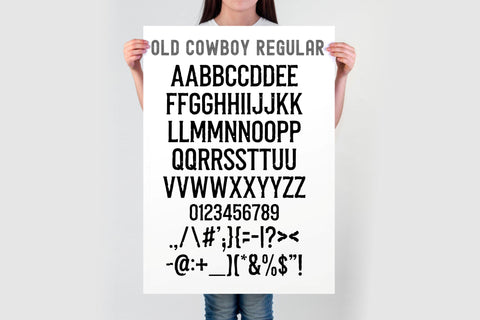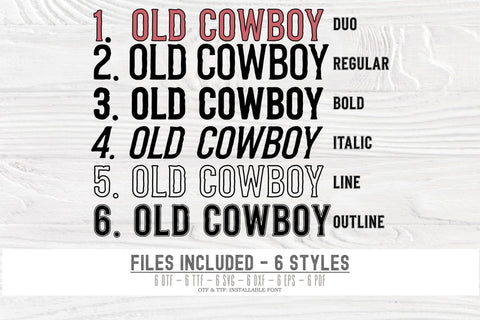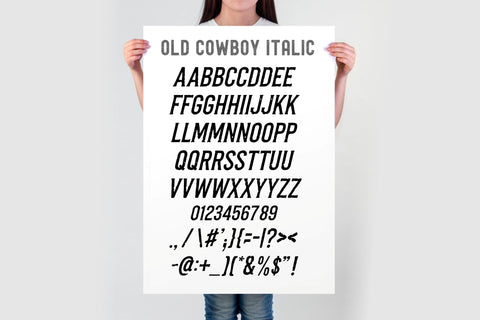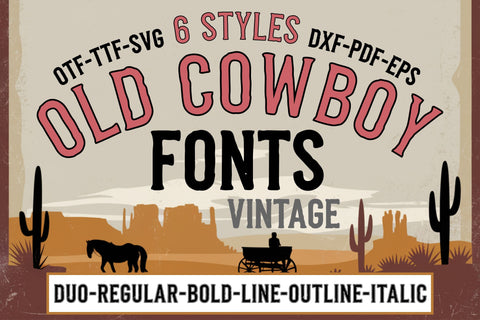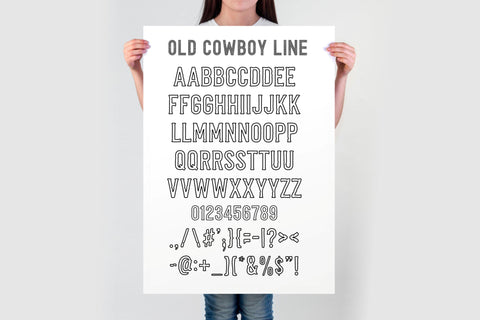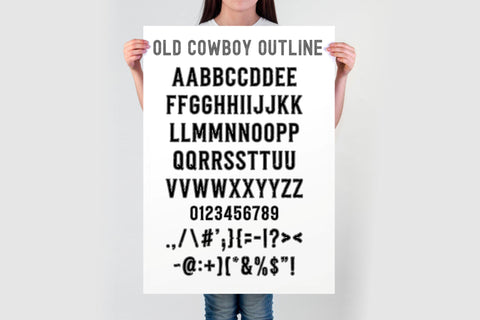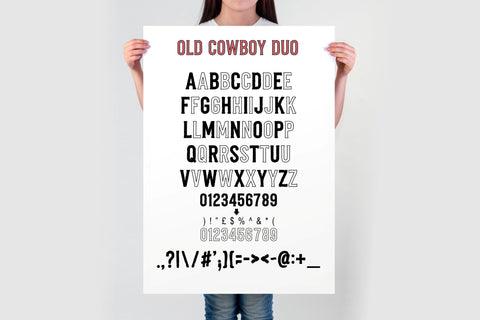
The "Old Cowboy" font is a Western-themed typeface that comes in six distinct styles: Duo, Regular, Bold, Line, Outline, and Italic. The standout style, Old Cowboy Duo, features bold uppercase letters and outline lowercase letters that perfectly align to create a unique two-tone font effect. This allows you to craft eye-catching designs with layered colors.
6 font styles: Duo, Regular, Bold, Line, Outline, Italic
Bold uppercase and outline lowercase letters in the Duo style
Layering for a unique two-color effect